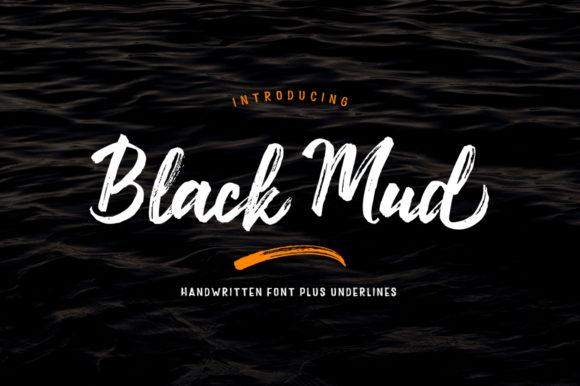
Black Mud Font: A Stunning Handwritten Font for Your Designs
Are you looking for a unique and elegant font to elevate your designs? Look no further than the Black Mud Font. This beautiful handwritten font is the result of a stunning pairing of a brush pen and pencil, creating a distinct and versatile style that fits a wide variety of designs.
What Makes Black Mud Font So Special?
The Black Mud Font is a one-of-a-kind font that boasts an incredibly versatile style. Its unique blend of brush pen and pencil strokes gives it a distinctive look that sets it apart from other fonts. Whether you’re looking to create a sophisticated logo, a beautiful wedding invitation, or a stunning social media graphic, the Black Mud Font is the perfect choice.
- Handwritten with love: The Black Mud Font is a handwritten font, created with care and attention to detail to ensure that every letter and stroke is perfect.
- Unique pairing of brush pen and pencil: The combination of a brush pen and pencil gives the Black Mud Font its distinctive look and feel.
- Distinct and elegant: The font’s unique style makes it perfect for designs that require a touch of elegance and sophistication.
- Versatile: The Black Mud Font can be used for a wide range of designs, from logos and invitations to social media graphics and more.
How to Use Black Mud Font in Your Designs
The Black Mud Font is incredibly versatile, making it perfect for a wide range of design projects. Here are just a few ideas to get you started:
- Logos and branding: The Black Mud Font is perfect for creating unique and memorable logos that will help your brand stand out.
- Wedding invitations and stationery: The font’s elegant style makes it perfect for wedding invitations, save-the-dates, and other stationery.
- Social media graphics: Use the Black Mud Font to create stunning social media graphics that will help you connect with your audience.
- Packaging and product design: The font’s unique style makes it perfect for packaging and product design, adding a touch of elegance and sophistication to your products.
Tips and Tricks for Using Black Mud Font
Here are a few tips and tricks to help you get the most out of the Black Mud Font:
- Experiment with different colors: The Black Mud Font looks great in a variety of colors, so don’t be afraid to experiment and find the perfect color for your design.
- Use it with other fonts: The Black Mud Font pairs well with other fonts, so try using it with a sans-serif font for a modern look or a script font for a more elegant feel.
- Play with texture and patterns: The Black Mud Font looks great with texture and patterns, so try adding a subtle texture or pattern to your design to give it extra depth and interest.
The Benefits of Using Black Mud Font
The Black Mud Font offers a range of benefits for designers, including:
- Unique and distinctive style: The Black Mud Font has a unique and distinctive style that will help your designs stand out.
- High-quality design: The font is designed to high standards, ensuring that it will look great in any design.
The Black Mud Font is a stunning handwritten font that is perfect for designers looking for a unique and elegant style. Its versatile design makes it perfect for a wide range of design projects, from logos and invitations to social media graphics and more. With its high-quality design, ease of use, and affordability, the Black Mud Font is a great choice for any designer.